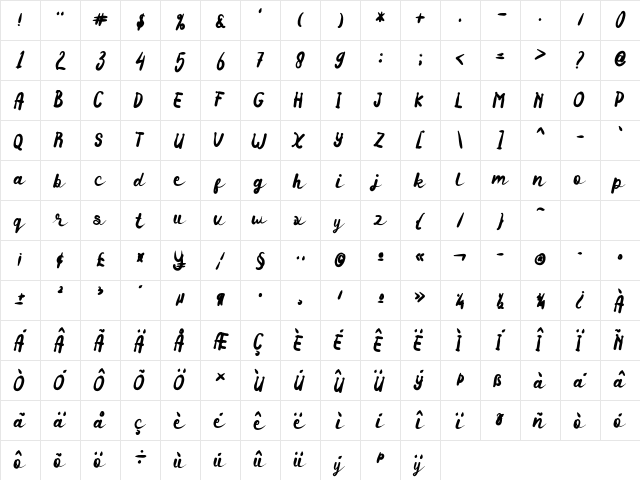
Complete Secret_Admirer Regular glyph index. Displaying only characters natively supported by Secret_Admirer Regular font.
Secret_Admirer is a composed and adaptable typeface that performs quietly and consistently across a wide range of design contexts.